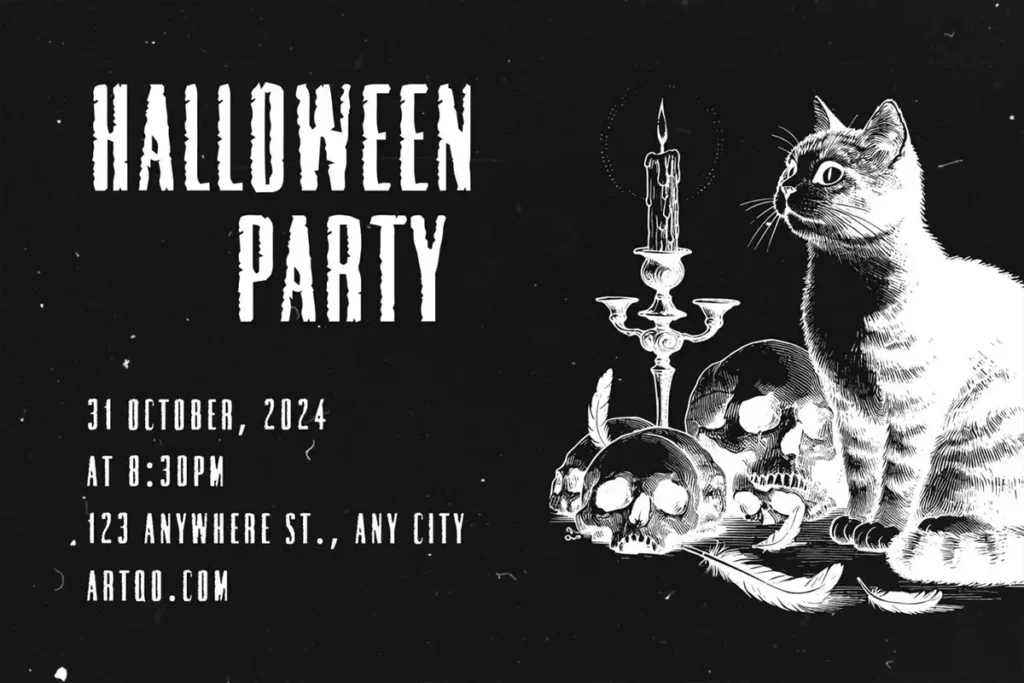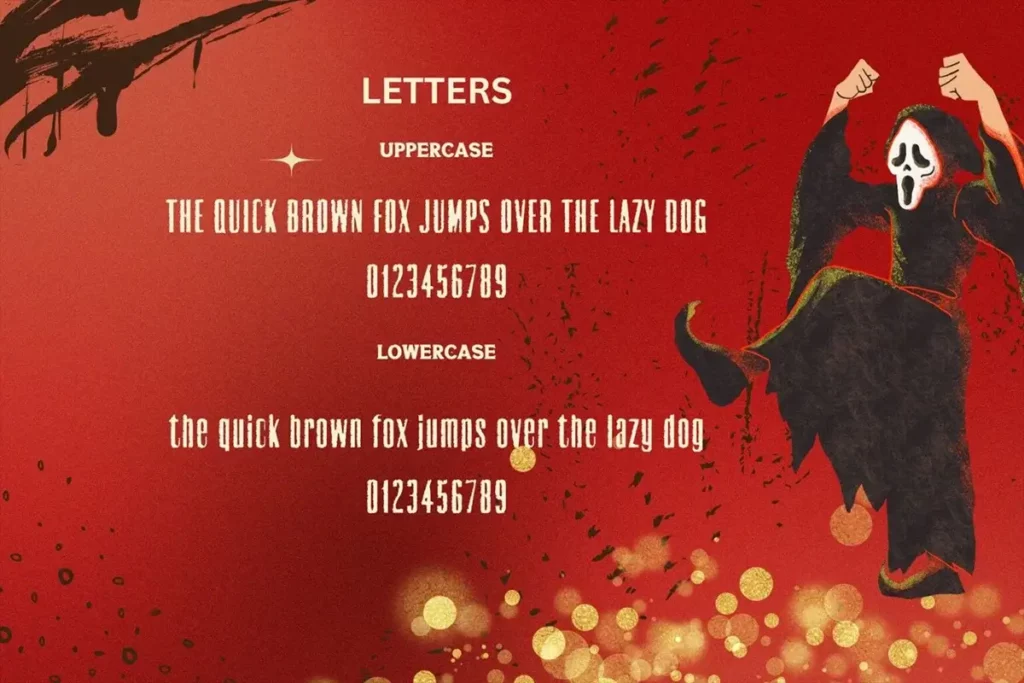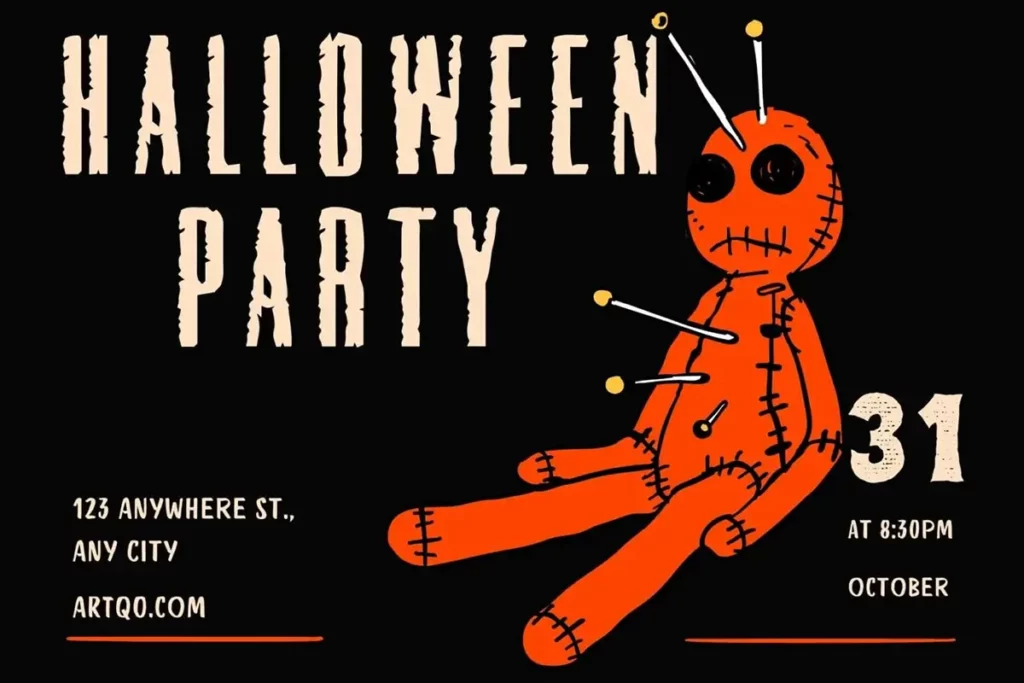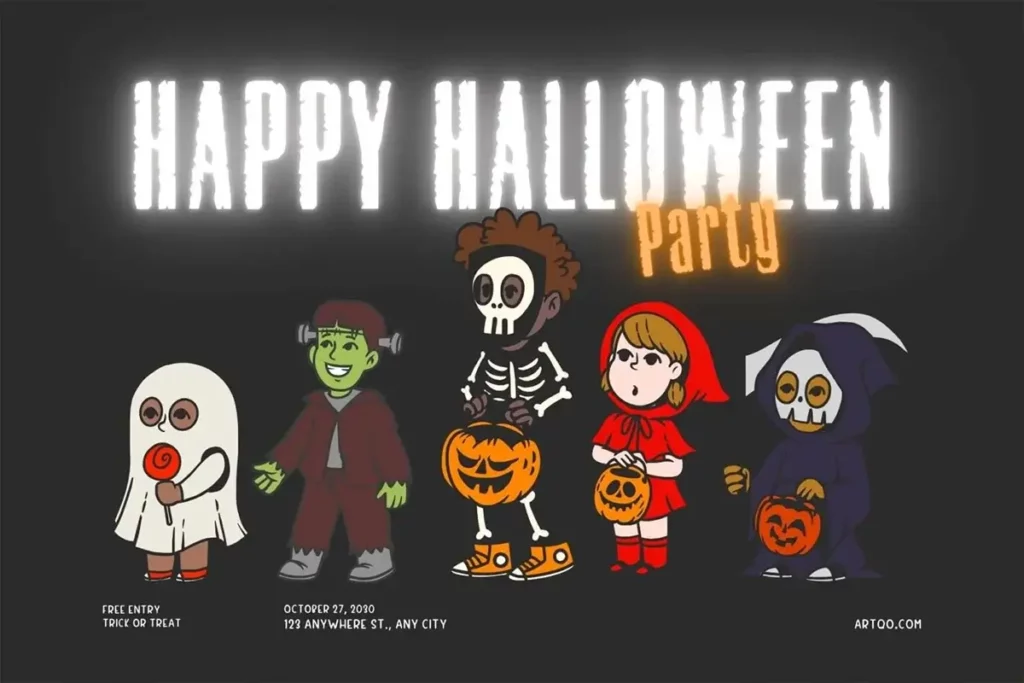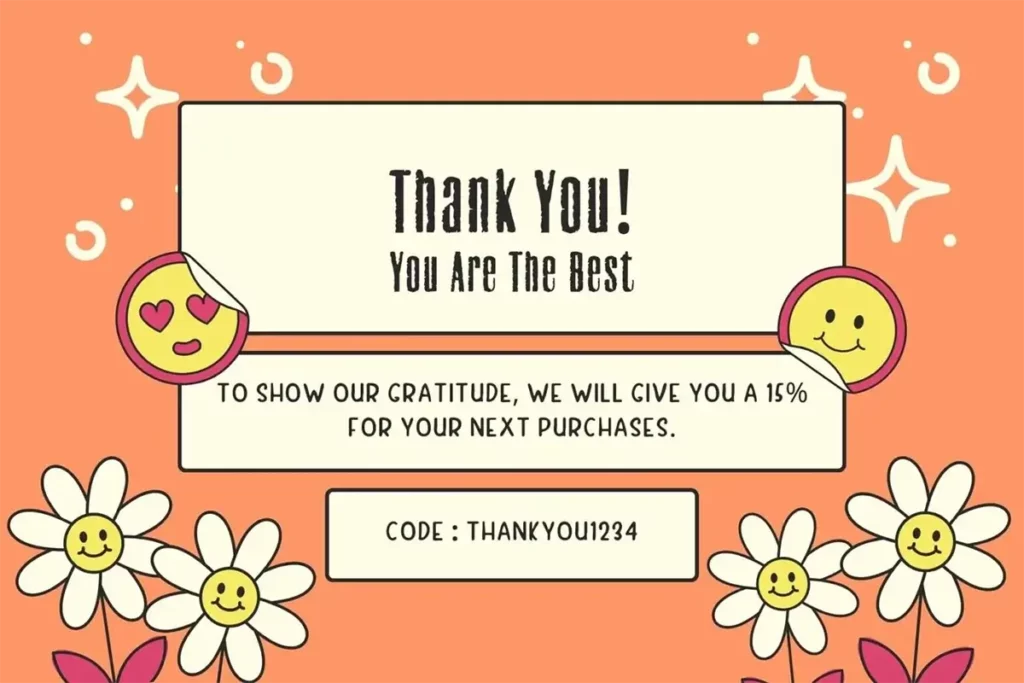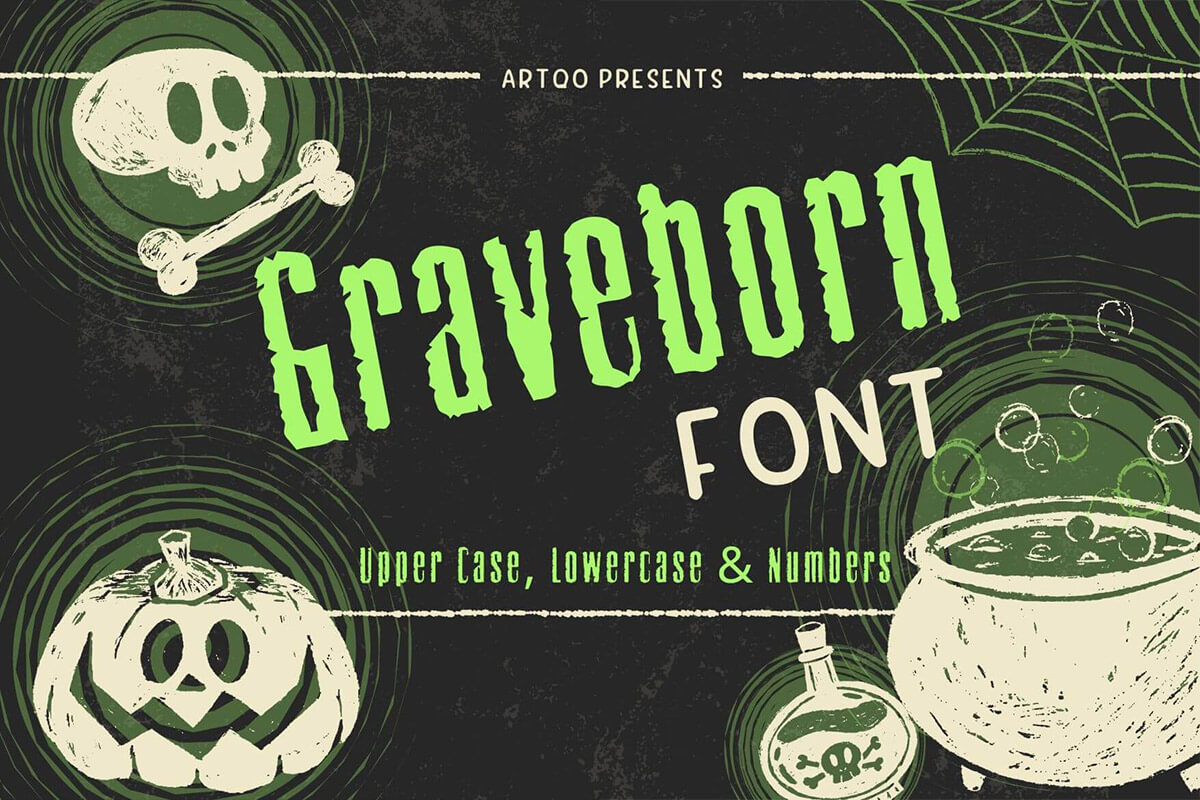
Graveborn Font – Halloween Themed Typeface
Graveborn Font is a spooky and gothic-style font perfect for Halloween and horror-themed designs. With its rough, jagged edges, it brings an eerie and mysterious feel to any project. Whether you’re creating invitations, posters, or social media graphics for a spooky event, this font will make your text stand out.
It includes uppercase and lowercase letters and numbers, making it versatile for various uses. Graveborn font is great for party invitations, haunted house flyers, Halloween decorations, and even apparel design. It’s easy to use and adds a unique touch to any scary or dark-themed project.
Use Cases
- Halloween Invitations: Ideal for creating party invites with a spooky vibe.
- Posters & Flyers: Use it in event posters for haunted houses, scary movies, or Halloween parties.
- T-shirt Designs: Great for printing on apparel, especially for Halloween-themed outfits.
- Social Media Graphics: Enhance your Halloween social posts with a gothic and mysterious look.
- Decorations: Perfect for signage and décor at spooky events or haunted houses.
Graveborn font is perfect for those who want to keep things simple but still stand out with a personal, handmade look.